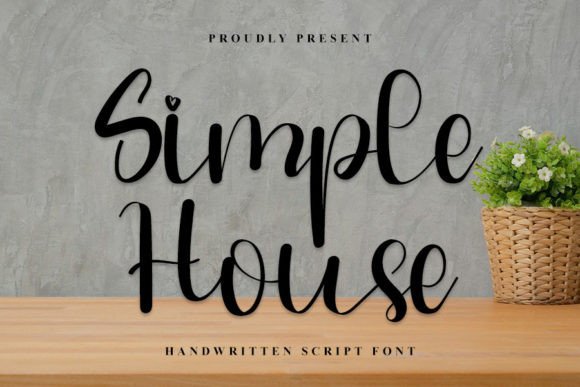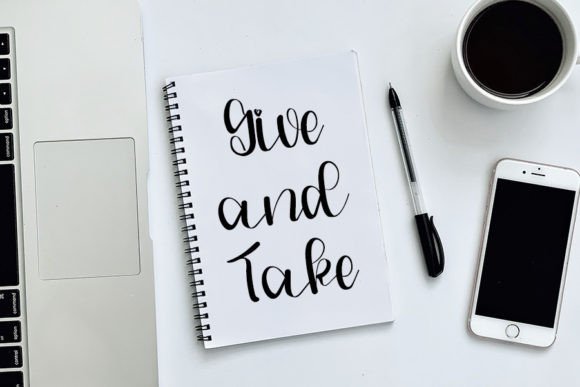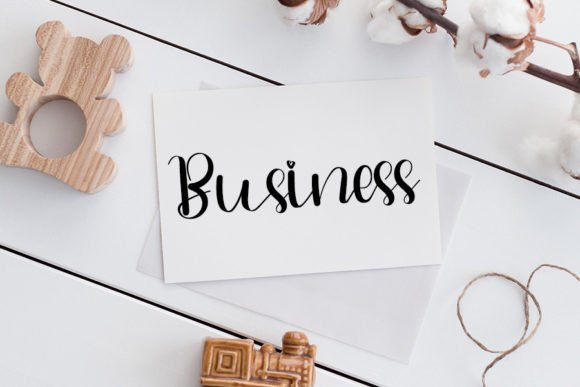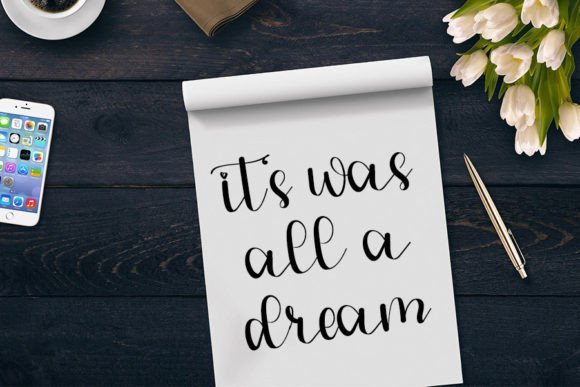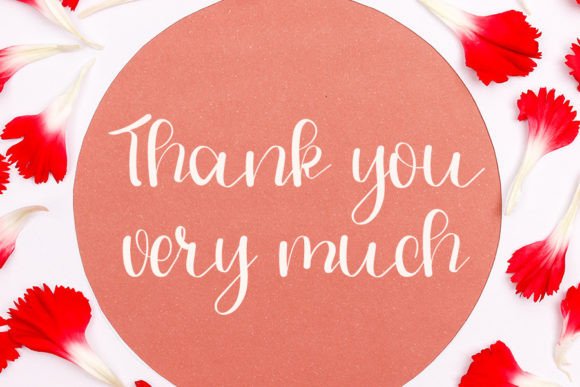
Simple House Font
Add Elegance to Your Work with Simple House Font
Simple House Font is a trendy handwritten typeface crafted with a modern feel and clean calligraphic inspiration. Designed to deliver both sophistication and warmth, this font fits a variety of creative needs, from digital designs to printed materials.
Perfect for a Wide Range of Design Projects
Whether you’re crafting wedding invitations, designing logos, or creating heartfelt social media posts, Simple House Font is your go-to solution. Here’s where this stylish font truly shines:
• Logos and Branding – Present your brand with elegance and clarity.
• Wedding Invitations – Add a romantic, personal feel to your event materials.
• Greeting Cards and Quotes – Infuse your messages with charm and personality.
• Social Media Graphics – Stand out with beautiful, on-trend typography.
• Product Packaging – Make your products look refined and upscale.
Its elegant strokes and balanced form make this font easy to read while still being unique and expressive.
What Makes Simple House Font Special?
Simple House Font includes a full set of upper and lowercase letters, punctuation, numbers, and stylistic alternates. Its handcrafted appearance gives it an authentic, natural look, while its polished design ensures consistency in professional use.